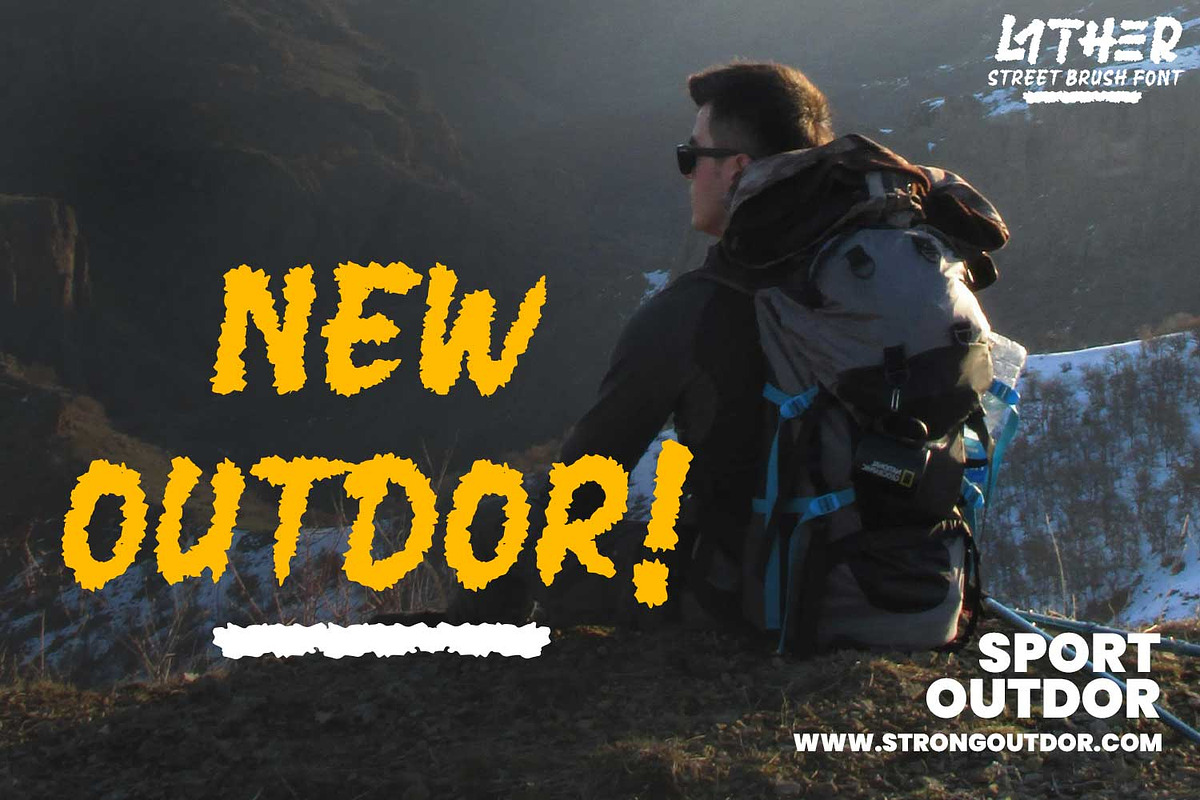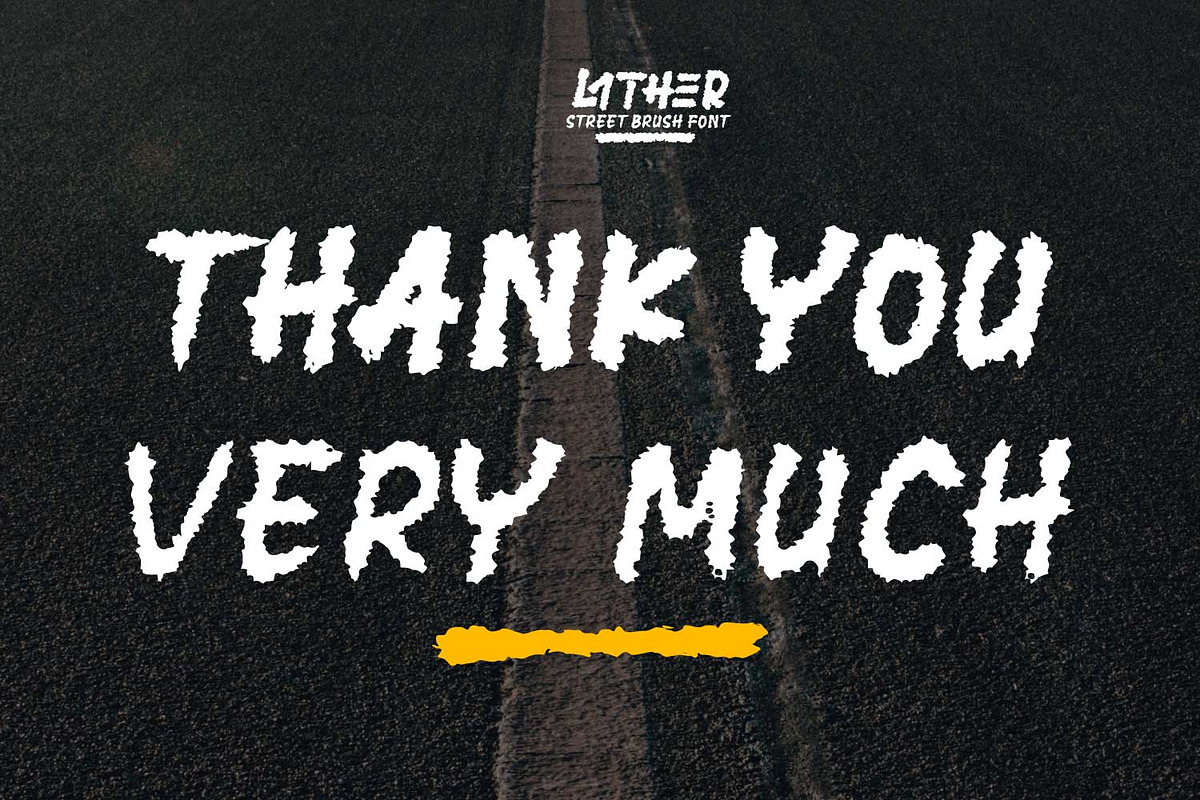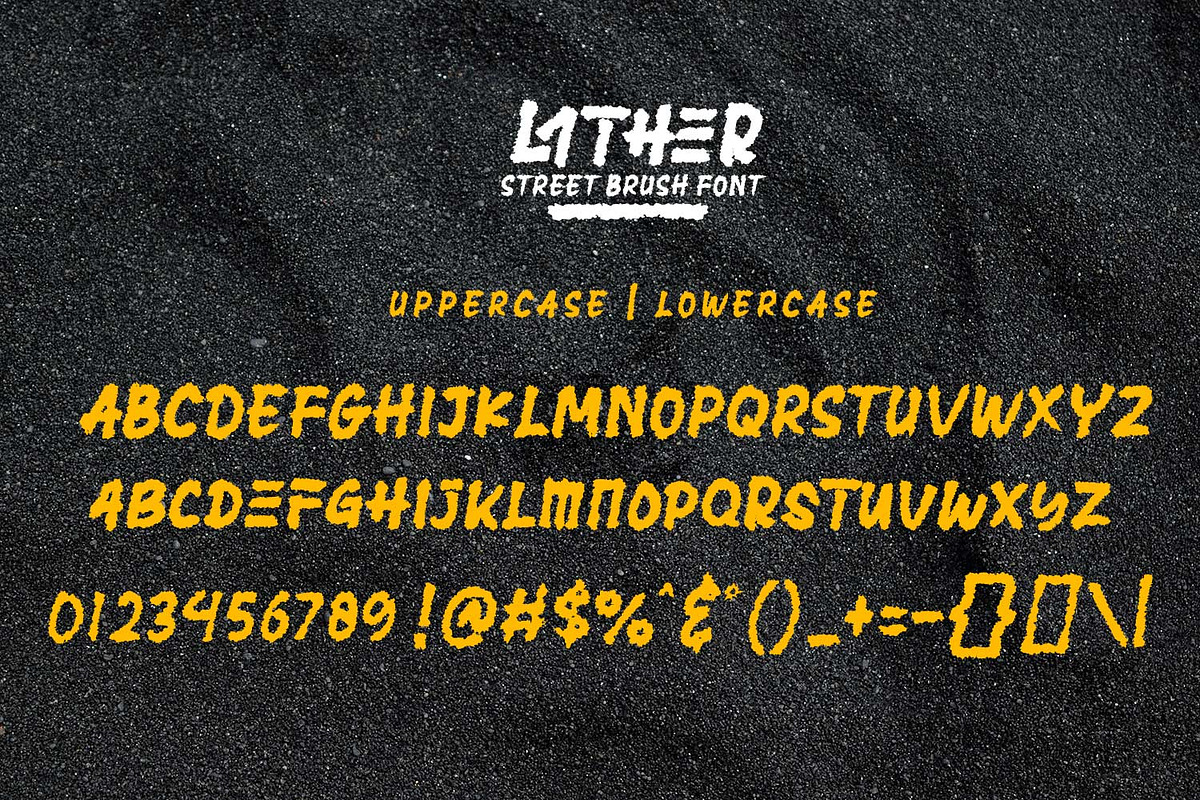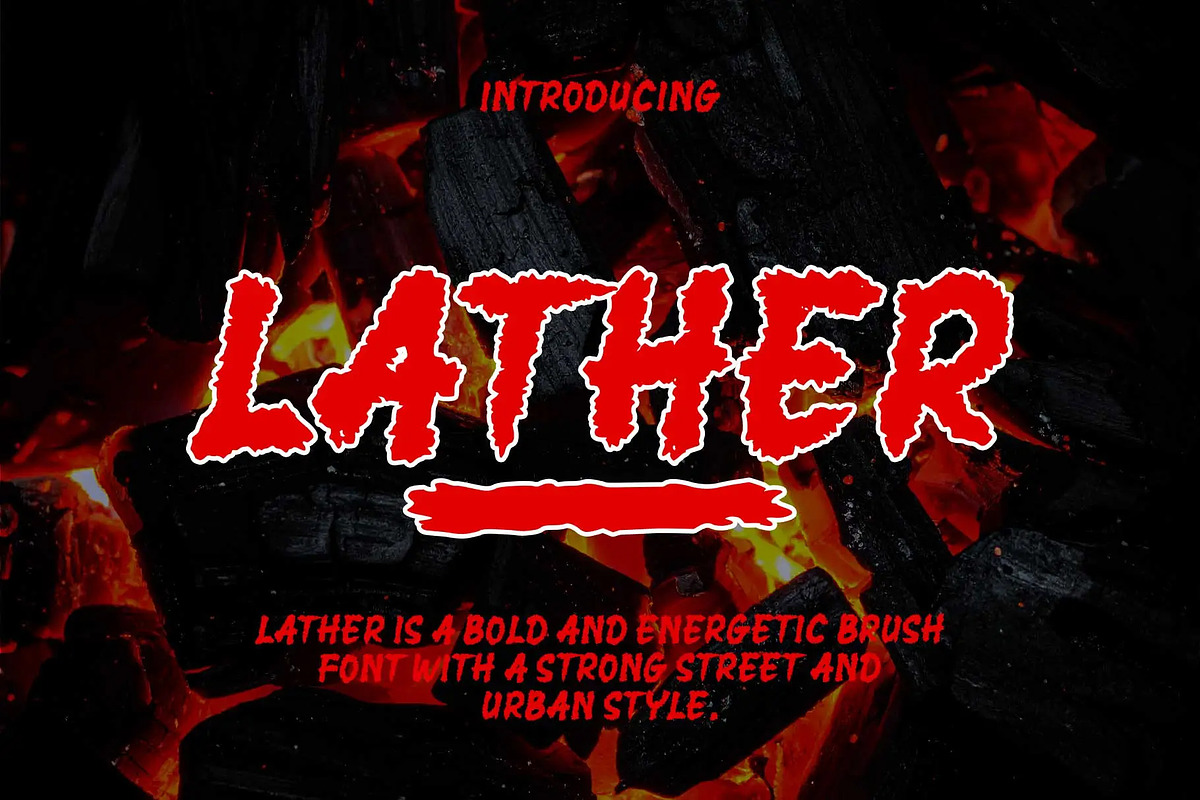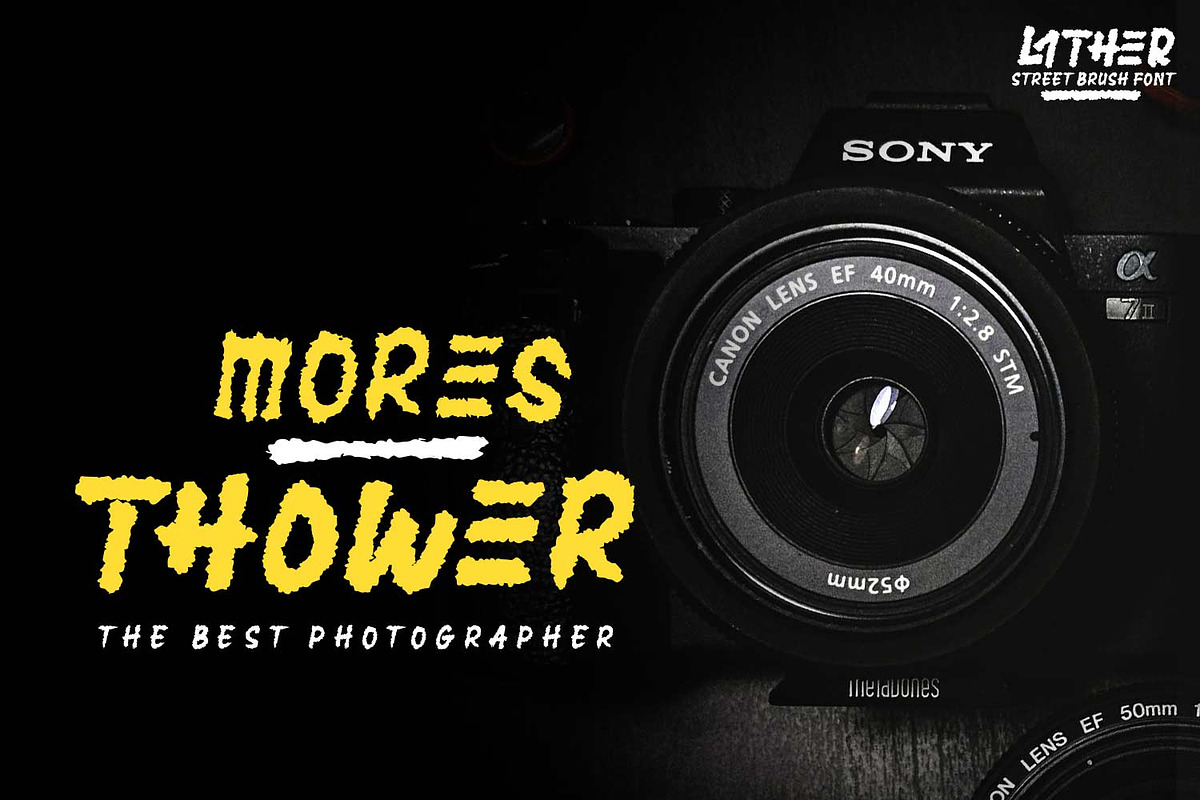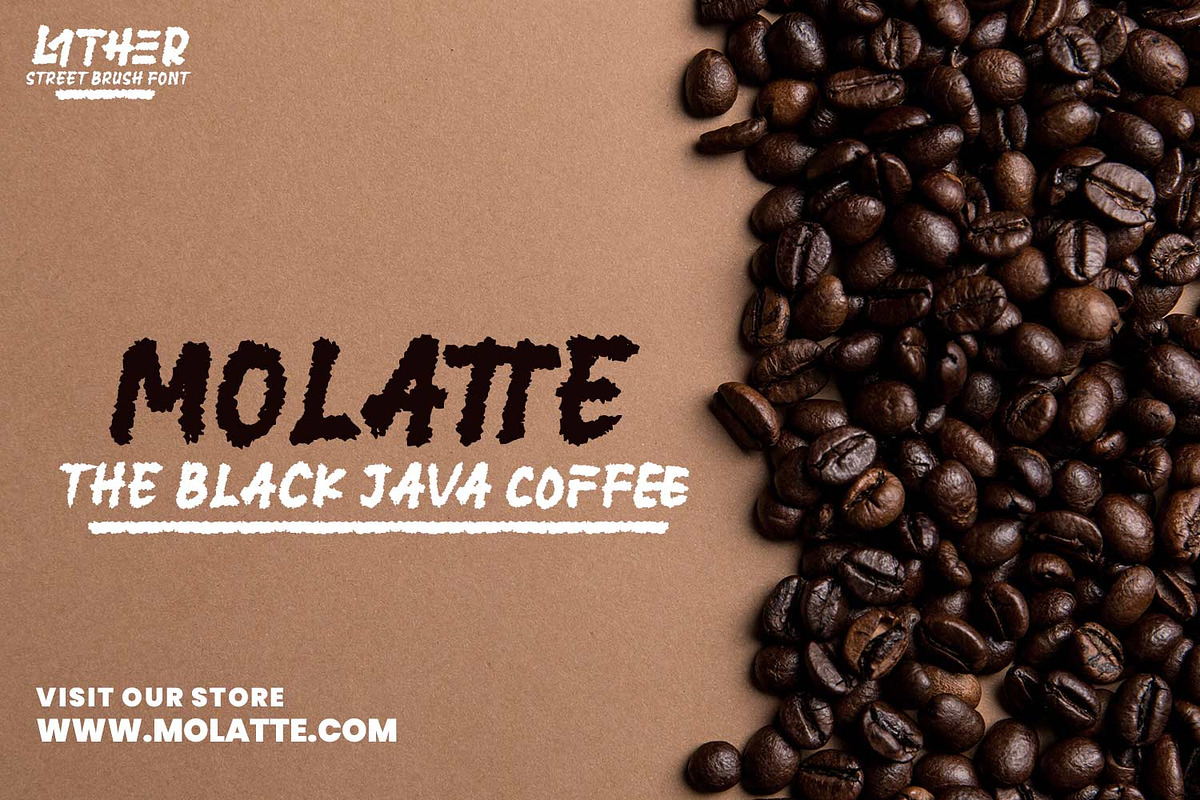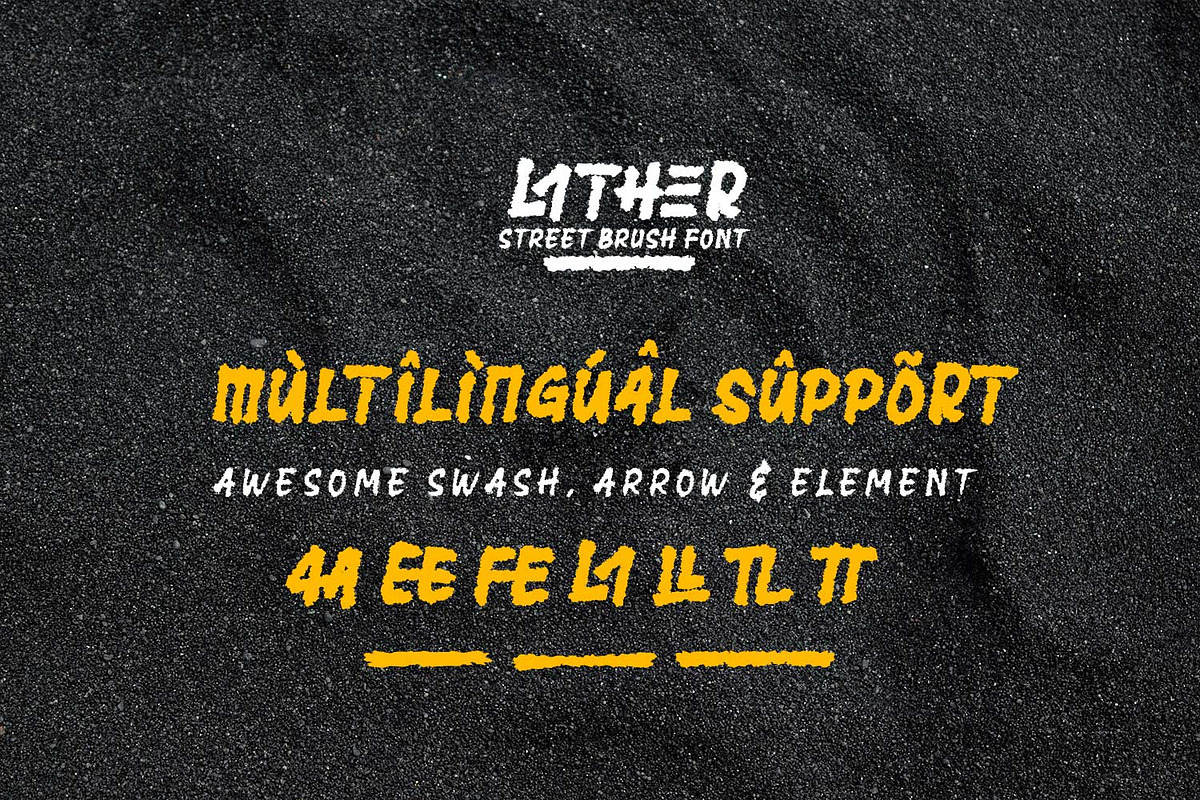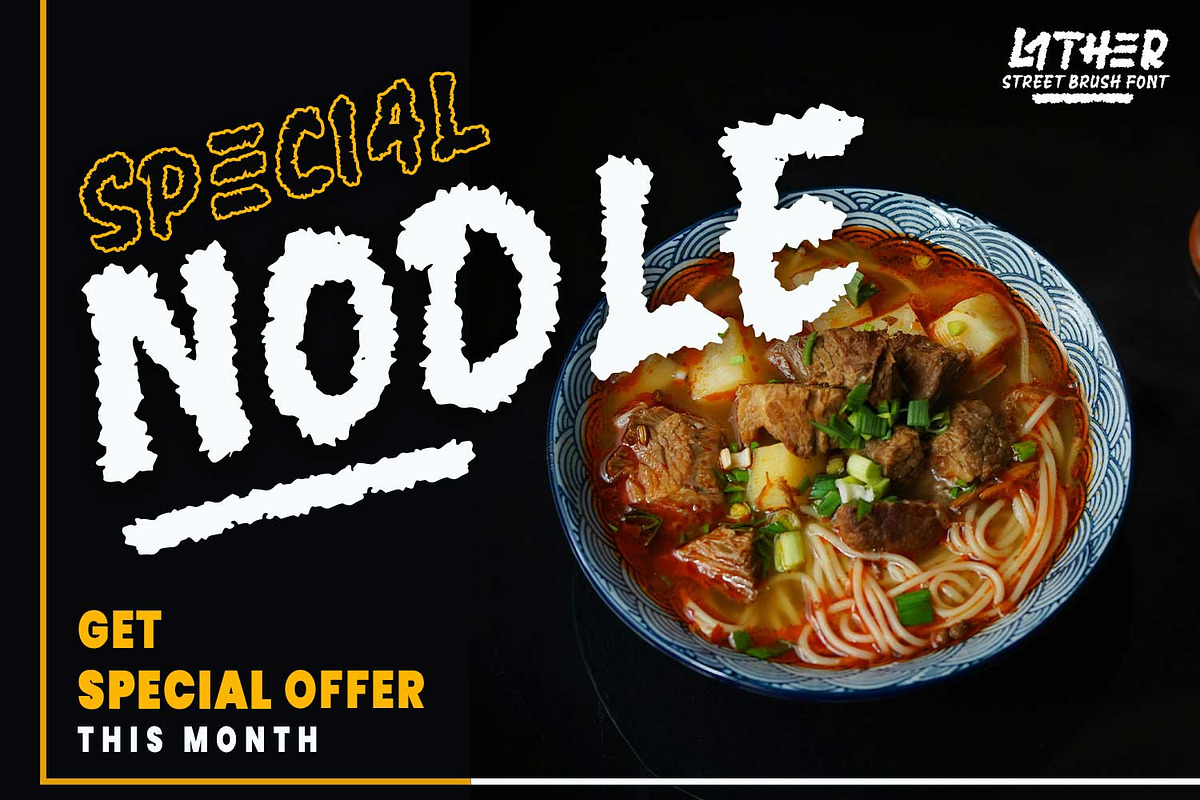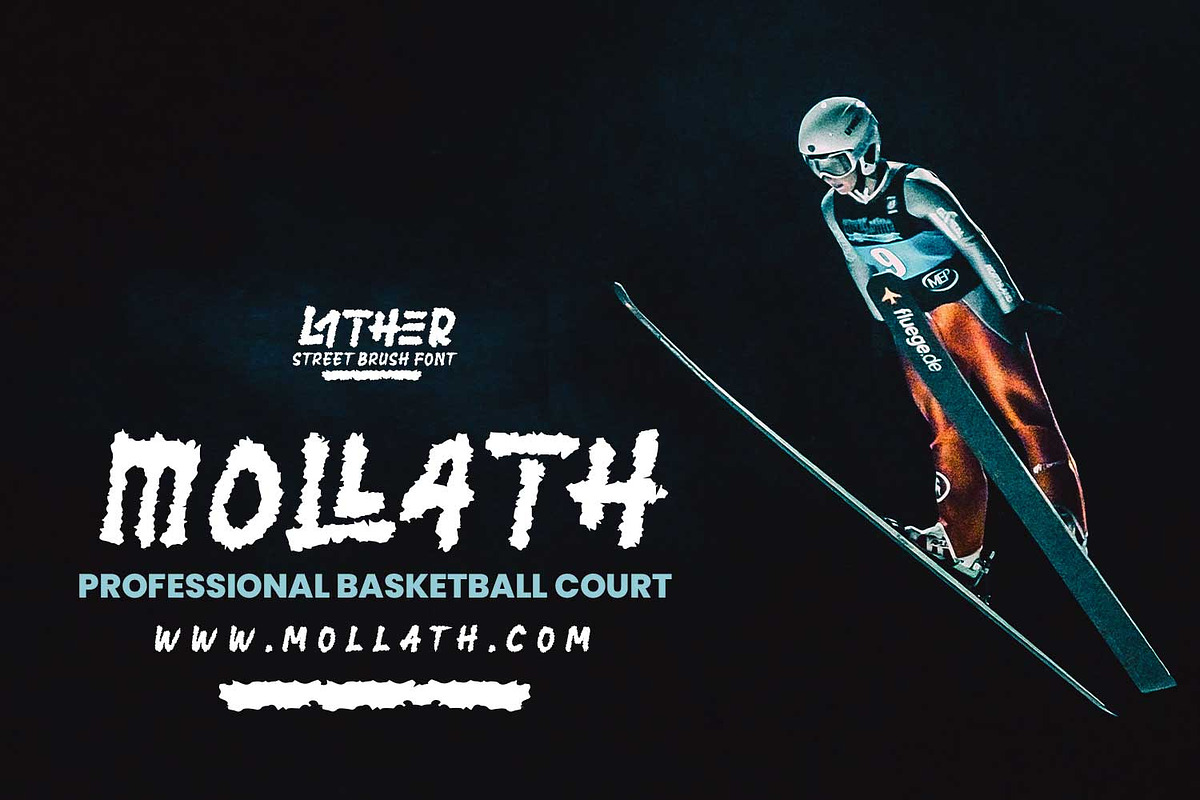
Lather – Street Brush Font
Lither is a bold and energetic brush font with a strong street and urban style. Its rough texture and dynamic strokes create a fearless and expressive look, making it perfect for branding, posters, product packaging, and social media designs that need a raw, adventurous feel.
Ideal for sports, adventure, and street-style themes.
- Swashes & decorative elements